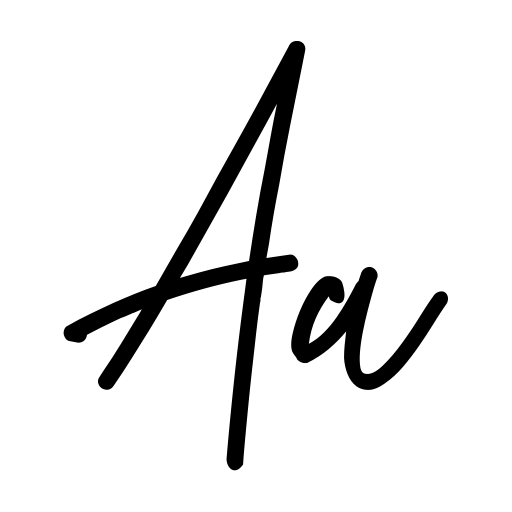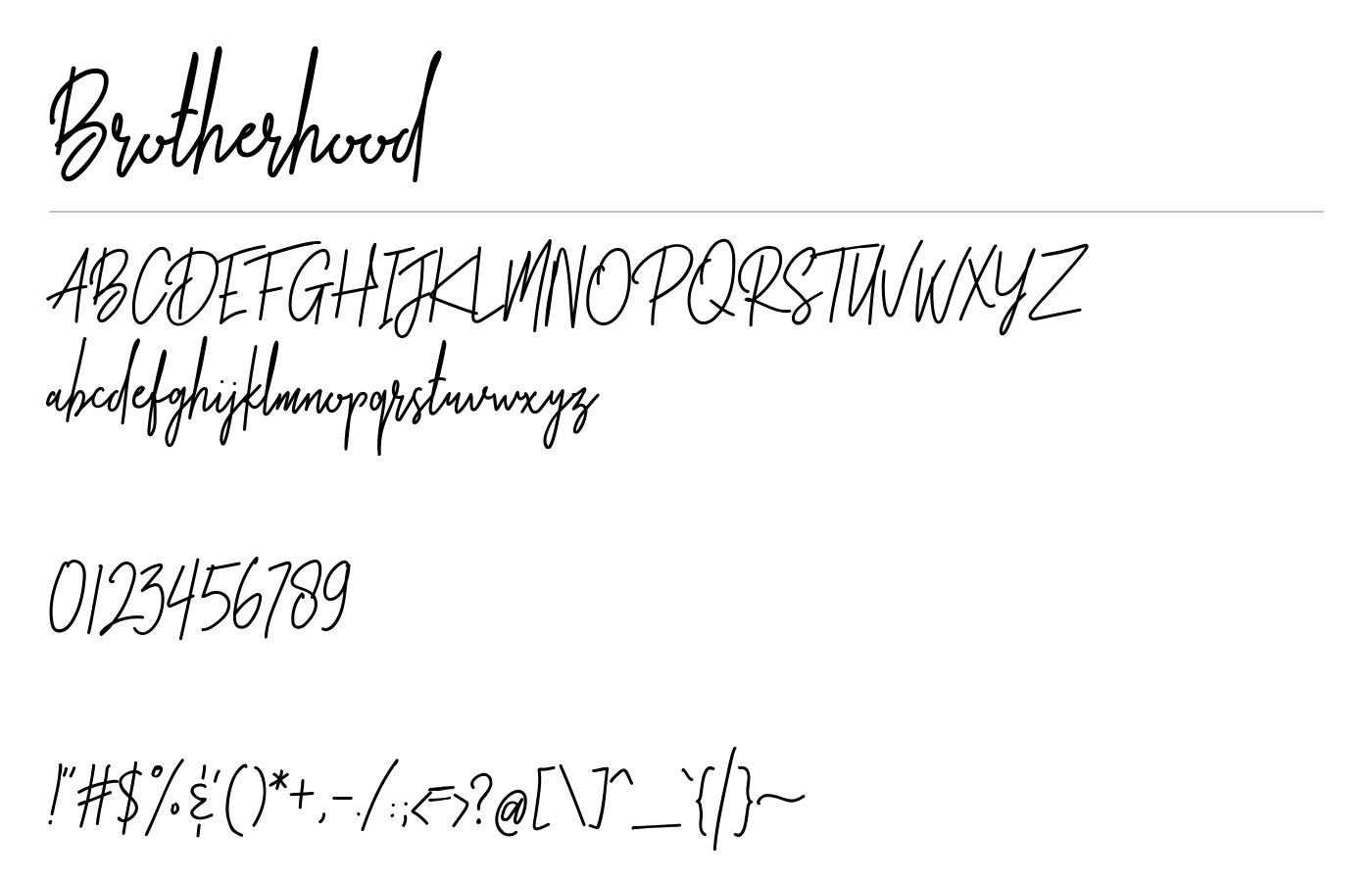
Brotherhood Font is a lively, handwritten script with a slender, elegant form that captures a casual yet sophisticated feel. Its tall, narrow letterforms and fluid strokes make it perfect for personal branding, creative projects, and stylish headlines where a modern, approachable touch is desired. This font works well in invitations, logos, and social media graphics, lending a fresh and genuine personality to any design.
Brotherhood Font
About Brotherhood Font